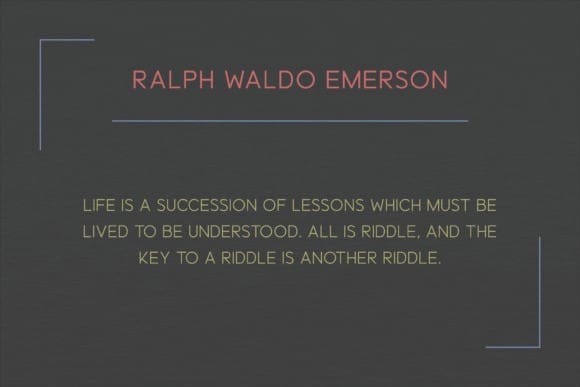
Moldyson Font Family
Moldyson Font Family, our exquisitely designed font family, the very epitome of elegance wrapped in minimalistic chic. This sans serif collection comes in 5 unique weights, blending the essences of modern flair with an undertone of luxurious appeal. With the hawk-eyed precision that went into its creation, Moldyson is the key to amplifying the impact of your diverse projects, be it on the glossy pages of a magazine, the riveting branding of a logo, or the unforgettable imagery on a film poster. Our font is designed to deliver that elusive equilibrium between sophistication and simplicity that only adds to the enduring appeal of your designs. Experience the transformative magic of the Moldyson font family now.